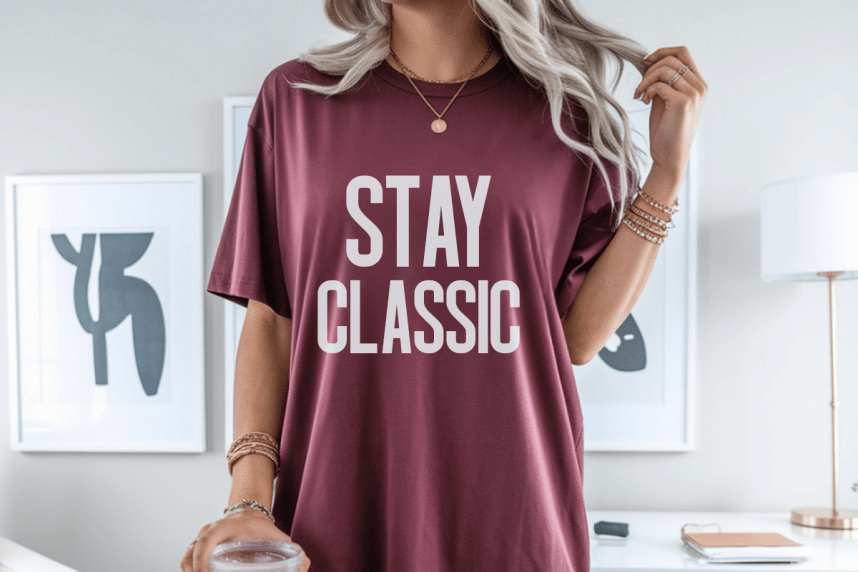
Funny Cute Font
Funny Cute Font is a playful and vibrant retro condensed sans serif font. Featuring a bold and energetic weight, it offers support for all characters of the English language. Standard punctuation glyphs are included. Funny Cute is perfectly suited for children’s merchandise, whimsical branding, and colorful apparel design. Great for crafters and graphic artists alike. Compatible with tools such as Photoshop, Cricut Design Space, or Silhouette Studio. Its fun and lighthearted style makes it great for creative projects, be it cheerful party invitations or for communicating your brand’s friendly personality.